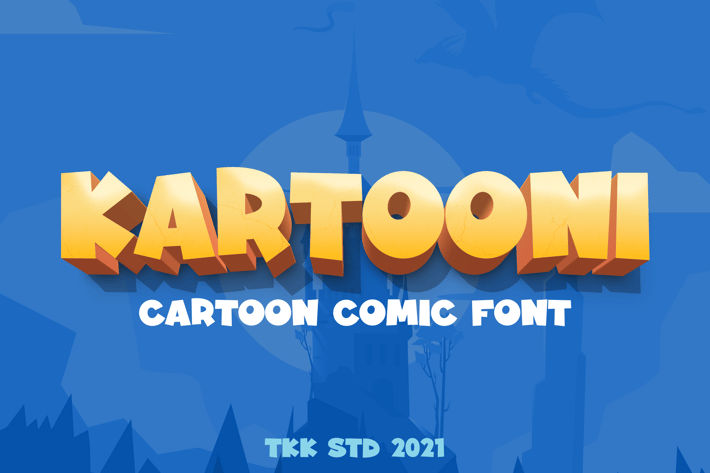
Kartooni - Cartoon Comic Font
Kartooni - Cartoon Font
Kartooni kids display typeface delivers a cheerful, cartoon-inspired experience with soft rounded curves and bouncy baselines. Designed for visual storytelling, this playful typeface blends expressive shapes with bold readability—ideal for capturing attention in educational or entertainment design. The bubbly letterforms give off a friendly, imaginative vibe perfect for engaging younger audiences. Think kids books, learning apps, or animated posters—the look is both inviting and easy to digest.
From children’s storybooks to interactive learning apps, Kartooni speaks the language of fun and friendliness. Its design balances visual charm with functional clarity, helping your work stand out without overwhelming the message. Use Kartooni to build trust with younger audiences and parents alike—it's tailor-made for projects that demand a joyful, lighthearted tone. Whether for print or screen, it brings warmth and personality into every letter.
- Kid-Friendly Design: Soft, curved letterforms crafted for young readers and playful branding.
- Bold & Legible: Thick strokes and consistent shape make it easy to read in large displays.
- Optimized for Engagement: Ideal for kids content, app UI, posters, merchandise, and signage.
- Versatile Uses: Perfect for storybooks, cartoons, birthday invites, learning tools, or YouTube thumbnails.
- Design-Ready: Built to perform across digital and print workflows.